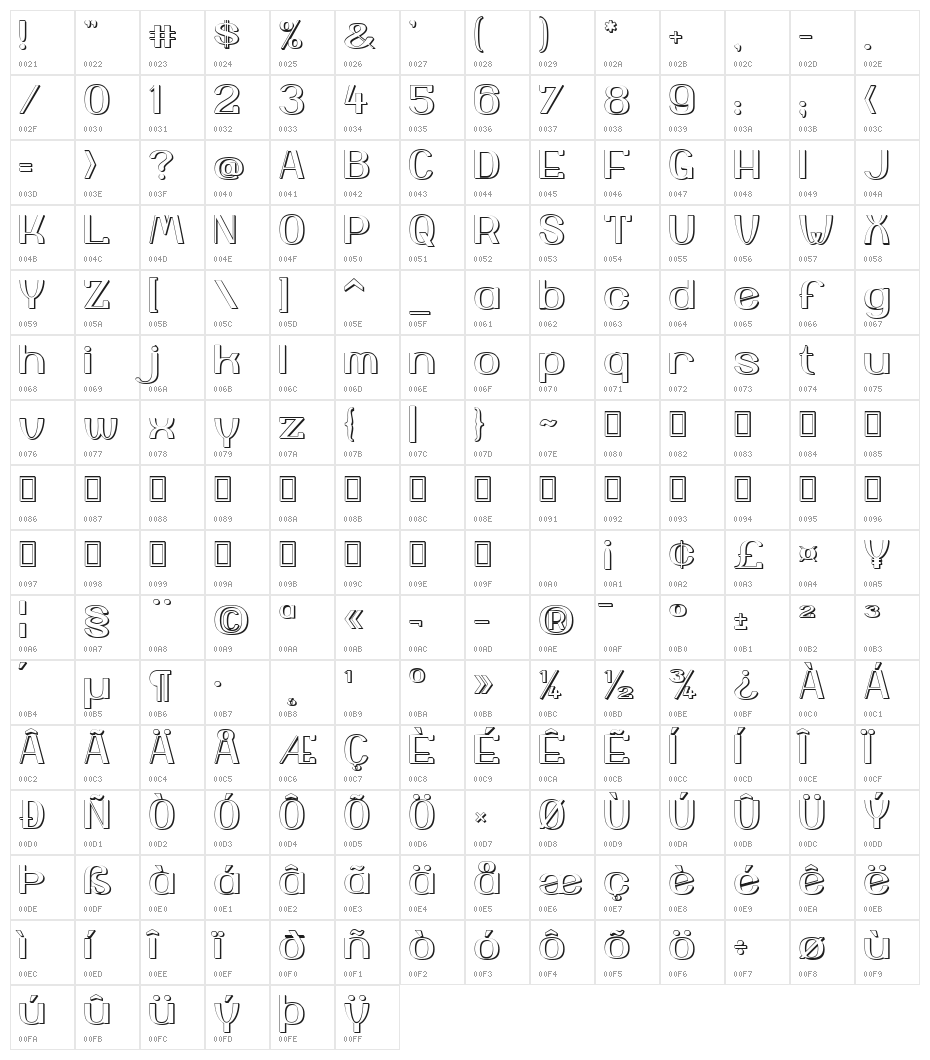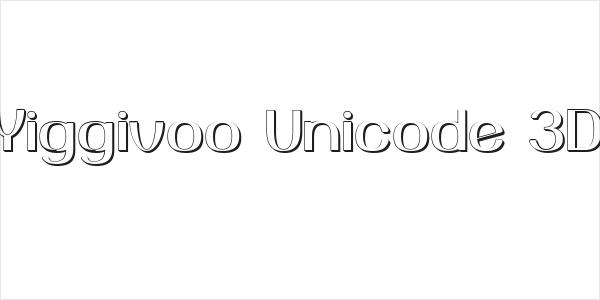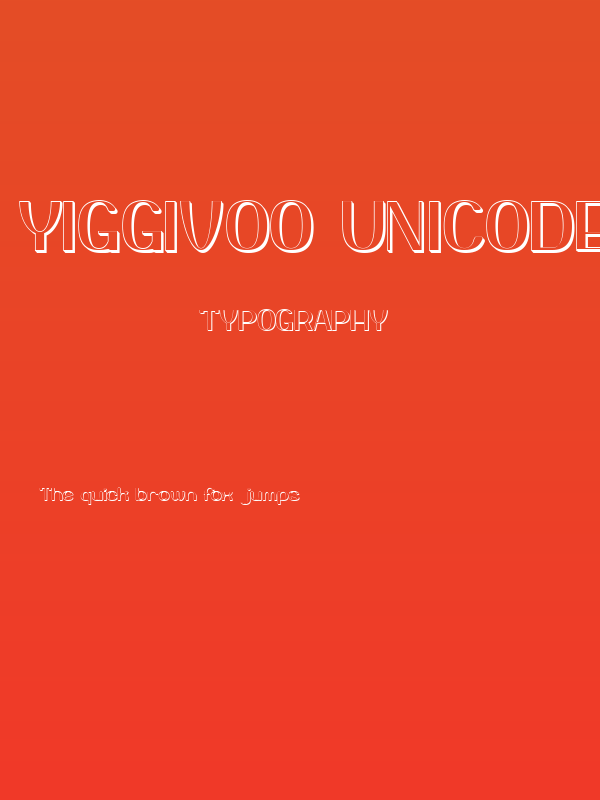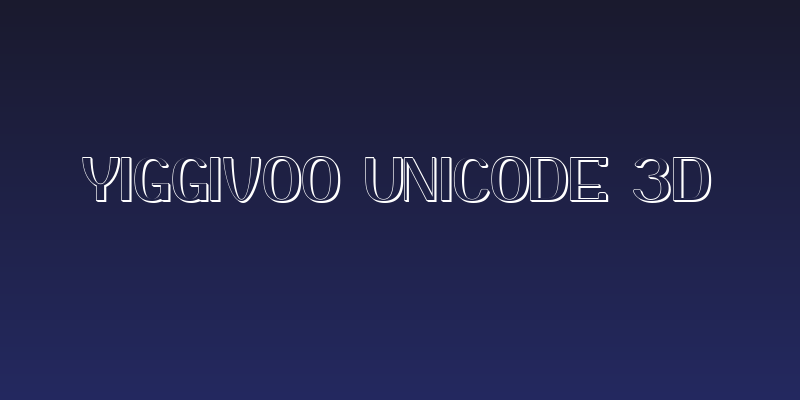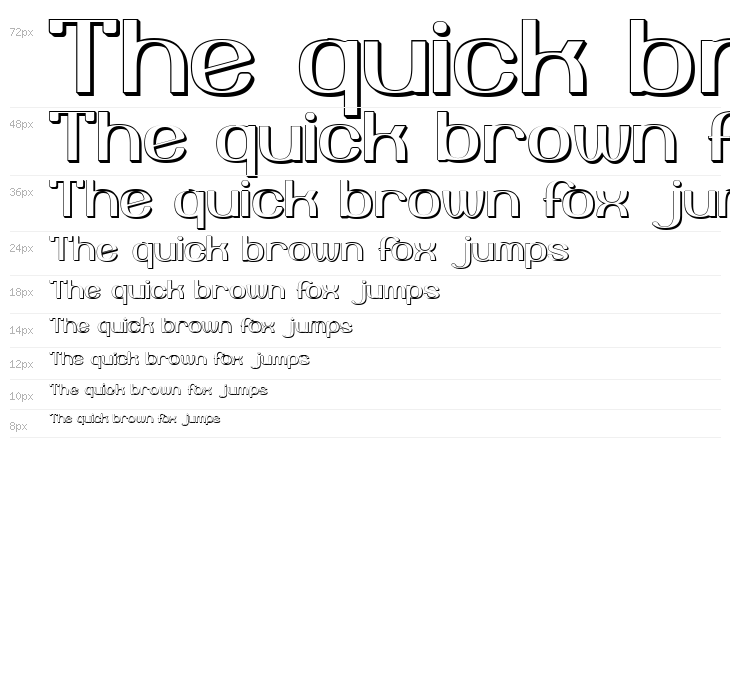
Yiggivoo Unicode 3D Font
Yiggivoo Unicode 3D Description
This font features a unique 3D outline style that gives each character a distinct depth and dimension. The uppercase and lowercase letters maintain a consistent geometric structure, with clean lines and a modern aesthetic. The numerals and special characters are designed to complement the alphabet, ensuring a cohesive look across all text. The font's open and airy design makes it suitable for projects that require a contemporary and eye-catching appearance. Its playful yet structured form can add a dynamic element to any design.
| Proposed Projects | Ideal for branding, posters, headlines, and any design that requires a modern and dynamic touch. |